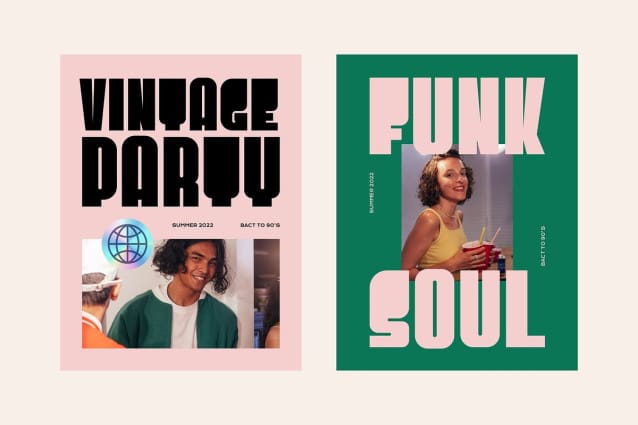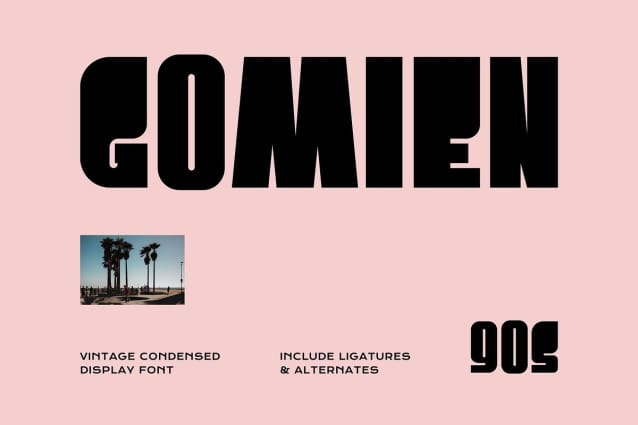
Gomien Font
Gomien Font is a vintage display font, this typeface has smooth curves and a visual style a can embodies charm and elegance in every lettering, making your work look stunning and attractive.
A versatile font that works in both large and small sizes, suitable for a wide variety of projects such as a display for headings, logos, invitations, branding, magazine, photography, card, product packaging, product mockup, mugs, posters, labels, signatures, editorials, art deco, any type of advertising purpose.